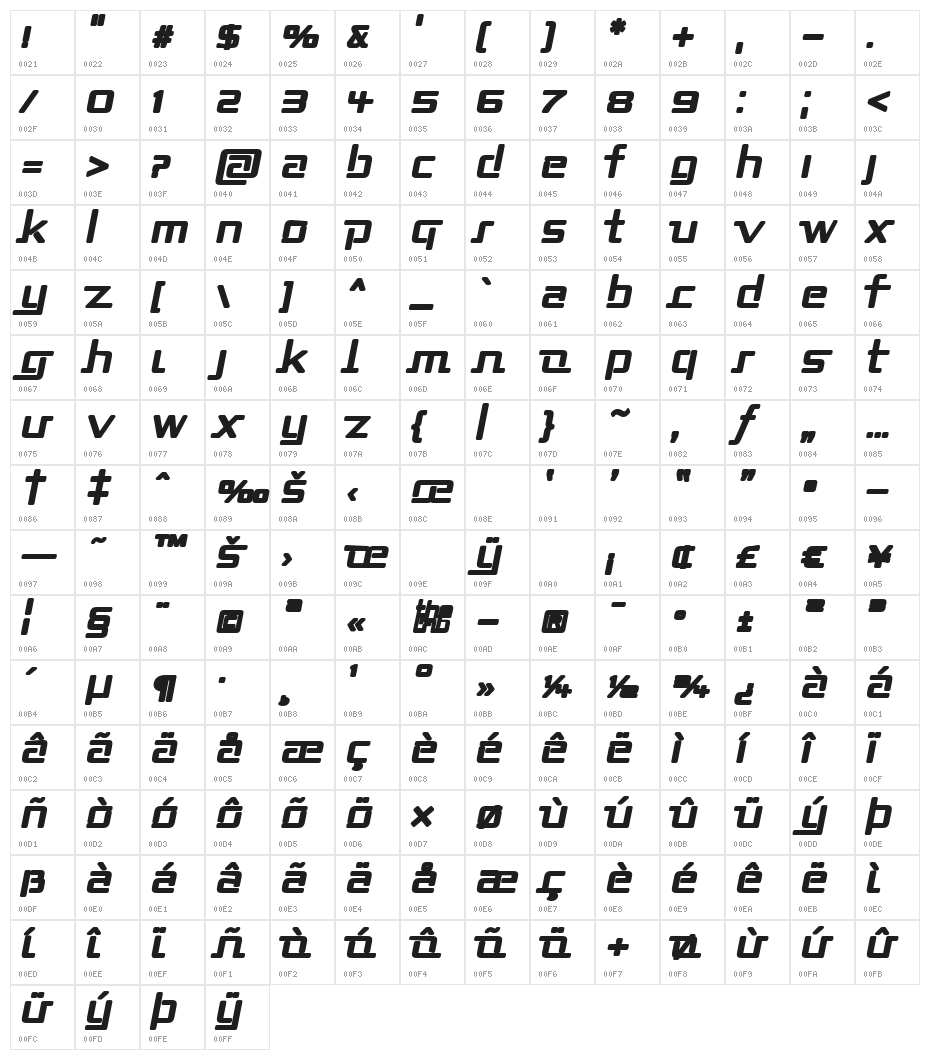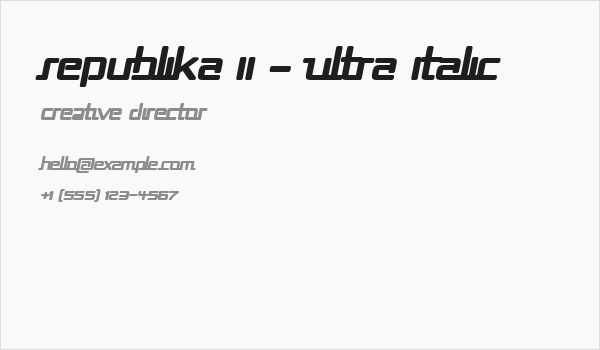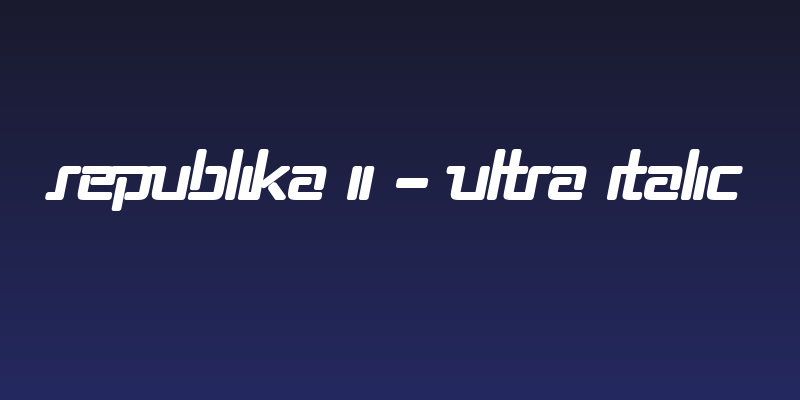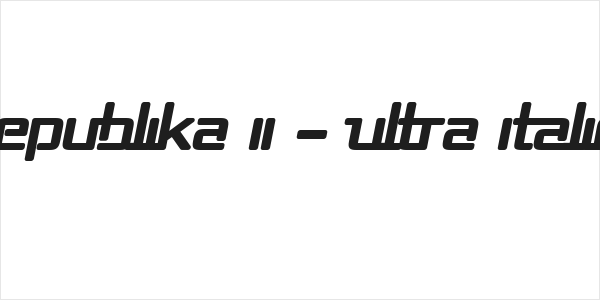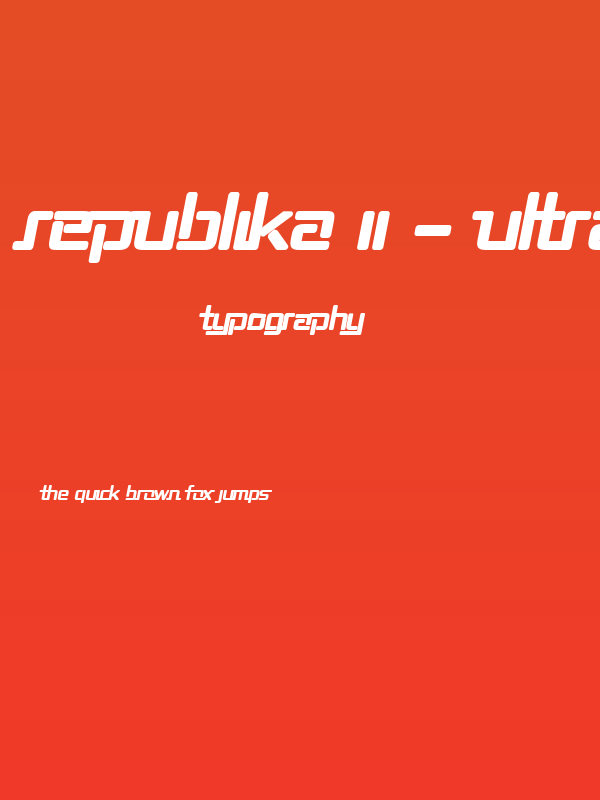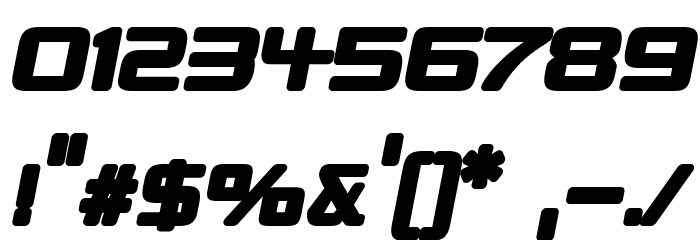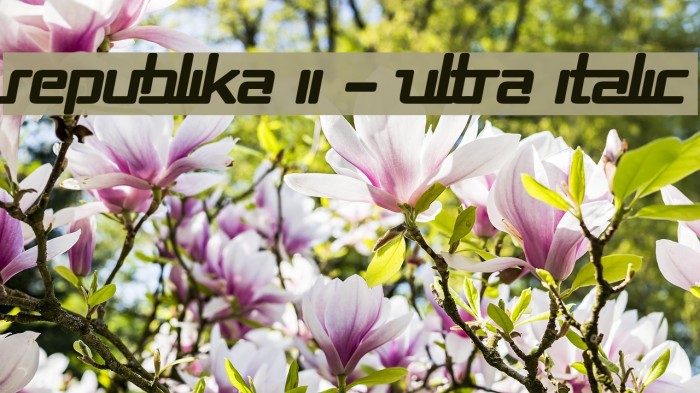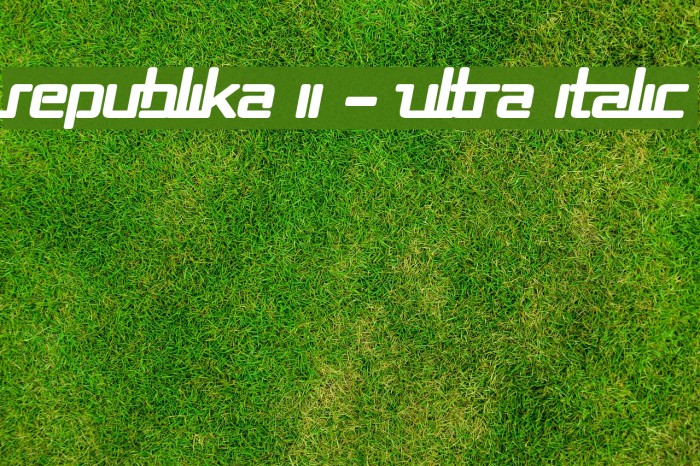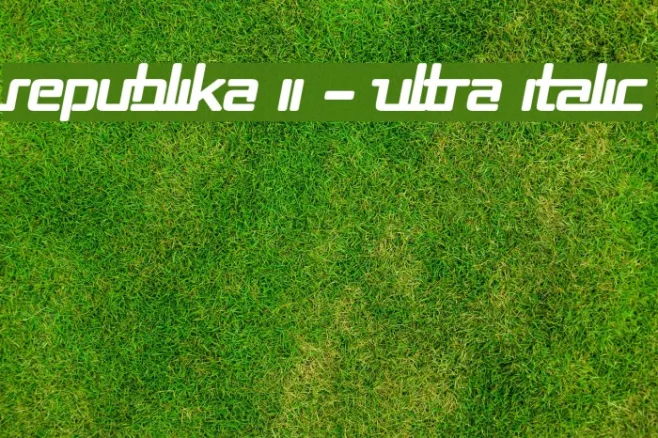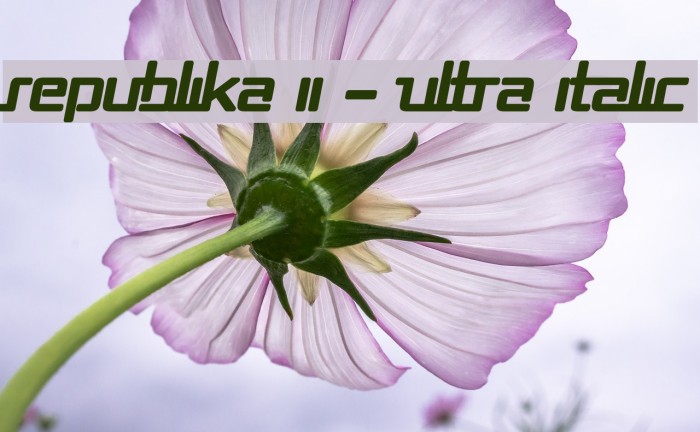
Republika II - Ultra Italic Font
Republika II - Ultra Italic Description
This font features a bold and dynamic style with a futuristic and sporty flair. The characters are italicized, giving them a forward-leaning appearance that suggests movement and speed. The strokes are thick and consistent, providing a strong visual impact. The design includes rounded edges and smooth curves, which soften the overall look while maintaining a sense of strength and stability. The numbers and special characters are designed to match the letters, ensuring a cohesive appearance across all glyphs. This font is ideal for projects that require a modern and energetic aesthetic.
| Proposed Projects | Ideal for sports branding, futuristic designs, automotive advertisements, and dynamic posters. |